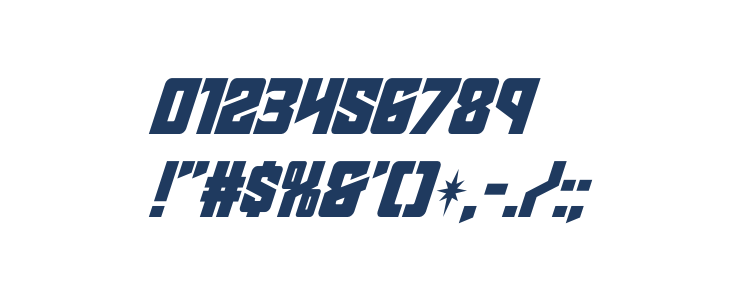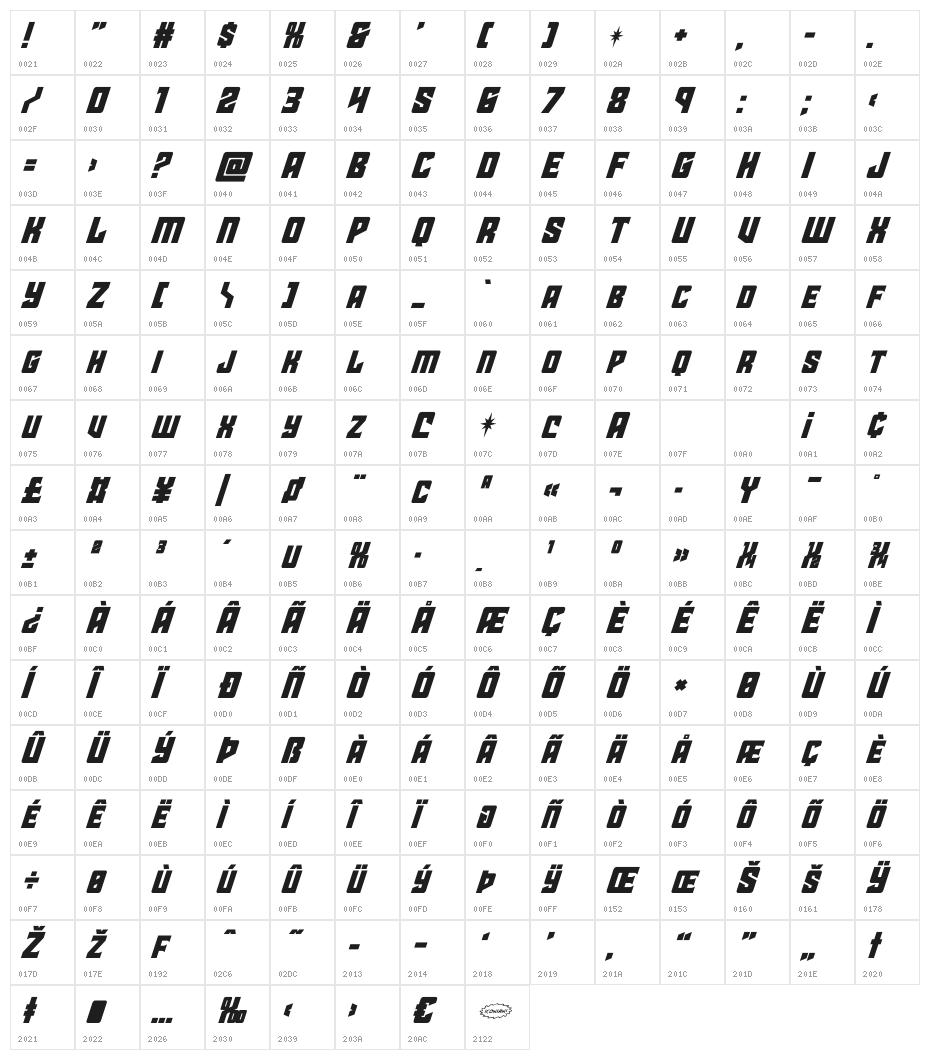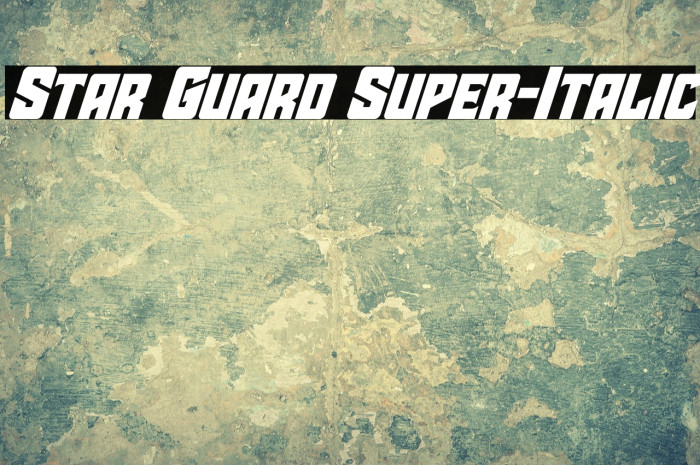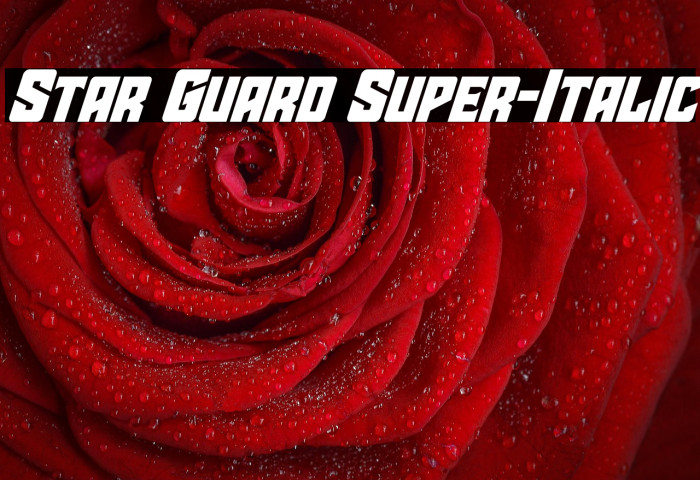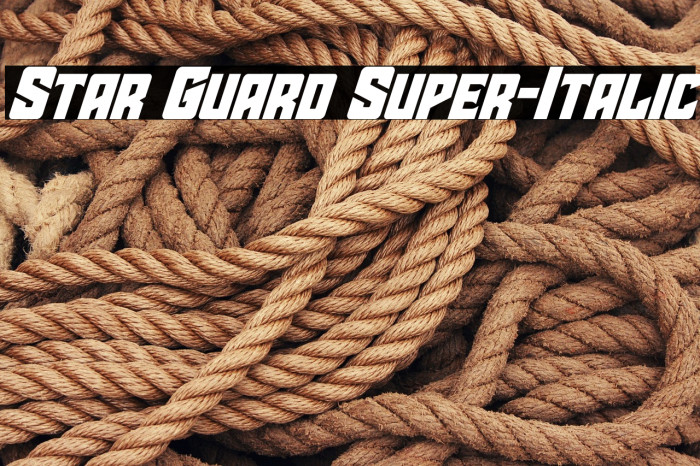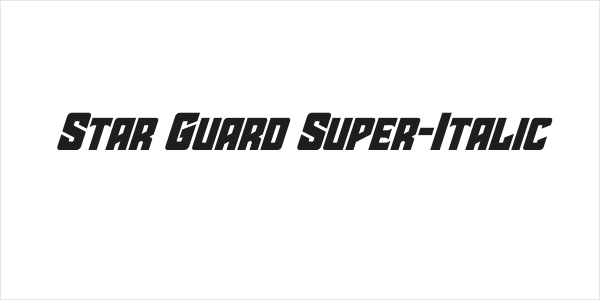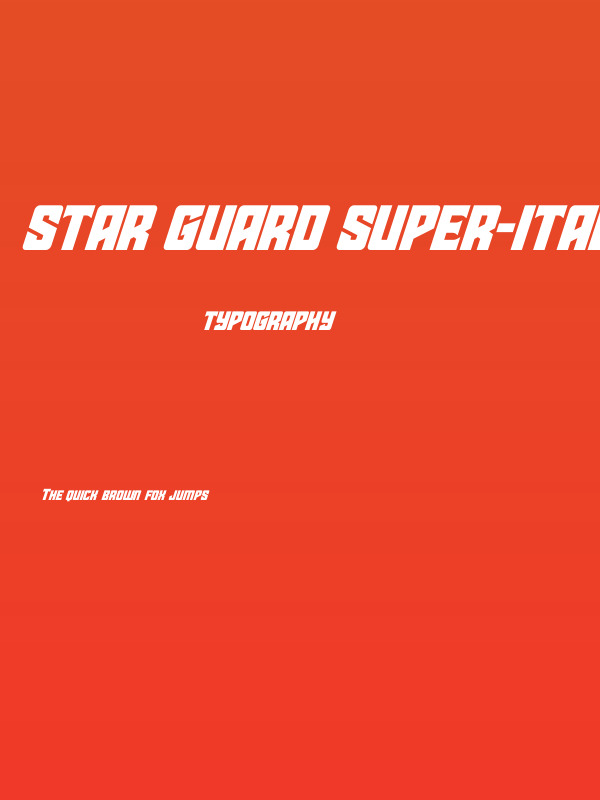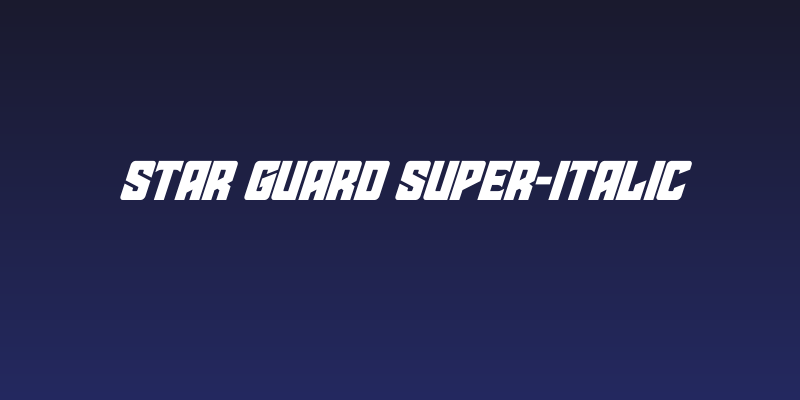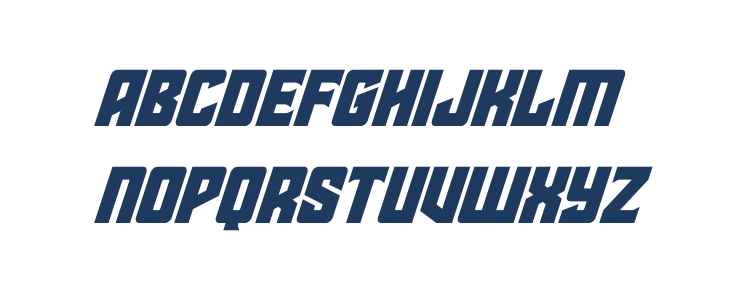
Star Guard Super-Italic Font
Star Guard Super-Italic Description
This font features a bold and dynamic design with a strong italic slant, giving it a sense of movement and energy. The characters are thick and angular, with sharp edges and a futuristic appearance. The uppercase and lowercase letters maintain a consistent style, while the numbers and special characters integrate seamlessly with the overall design. The font's aggressive and modern look makes it suitable for attention-grabbing headlines and impactful designs.
| Proposed Projects | Ideal for sci-fi themed posters, video game titles, and dynamic branding projects. |